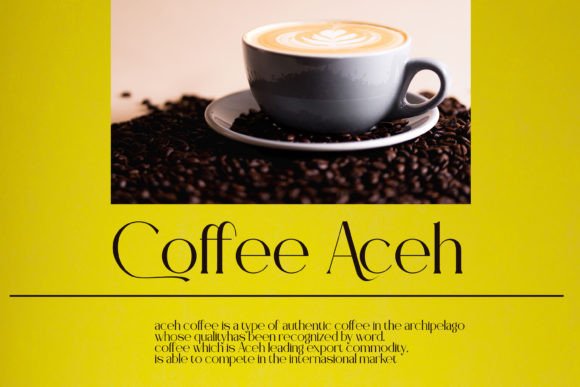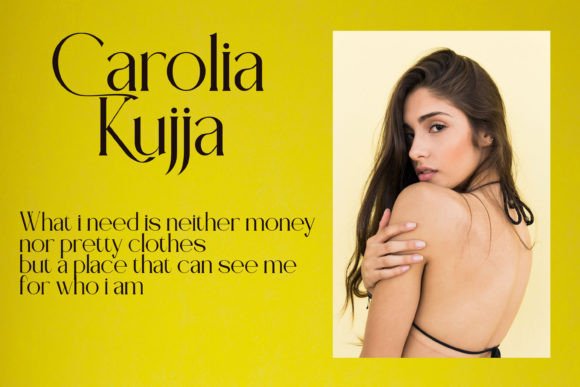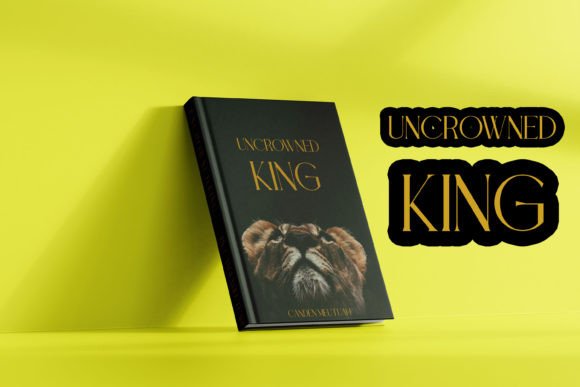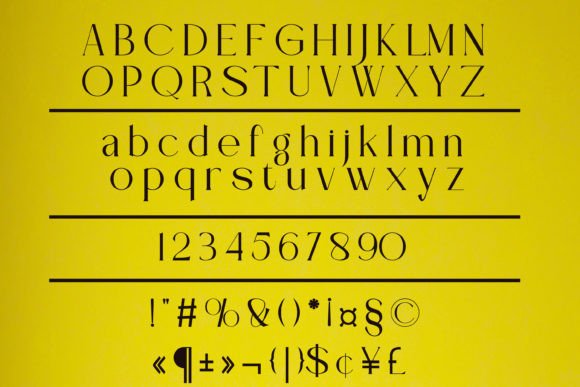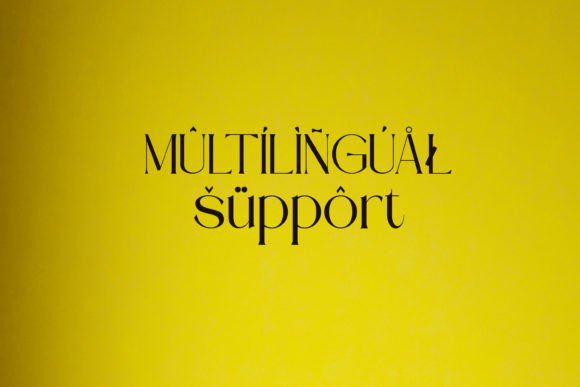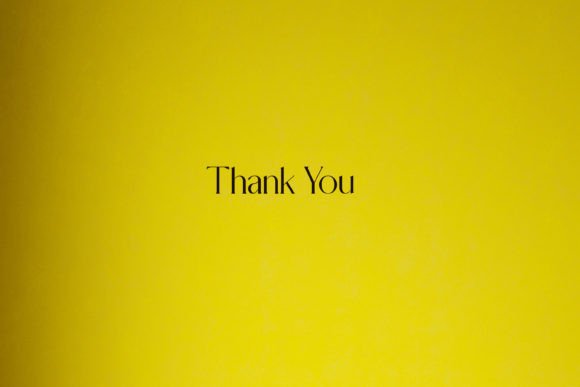
Ginthagil Font: Elevate Your Designs with Elegance and Sophistication
In the world of typography, a font can make or break the visual appeal of a design project. For designers and crafters seeking to add a touch of luxury and style to their creations, the Ginthagil Serif font is an excellent choice. This modern serif font is packaged in a sleek and classy style, complete with access to OpenType features that offer a wide range of alternative letters and ligatures.
What is Ginthagil Serif Font?
Ginthagil Serif is a contemporary serif font designed to provide a luxurious and elegant impression. Its modern and classy style makes it perfect for various design projects, from branding and logo design to packaging, magazine titles, and advertisements. The font’s versatility allows it to work well in both large and small sizes, ensuring that your designs look great regardless of the application.
Key Features of Ginthagil Serif Font
- OpenType Features: Ginthagil Serif font comes with access to OpenType features, allowing you to tap into a vast selection of alternative letters and ligatures. This feature enables you to choose the perfect letters for your design, giving you creative control and flexibility.
- Large Selection of Letters: The font includes a wide range of uppercase and lowercase letters, ensuring that you can mix and match to create a unique look that suits your design style.
- Luxurious and Elegant Appearance: Ginthagil Serif font is designed to exude luxury and elegance, making it perfect for high-end branding projects, magazine titles, and advertisements.
- Versatility: This font works well in both large and small sizes, making it suitable for various applications, from logo design to product packaging.
Ginthagil Serif font is an excellent choice for designers and crafters looking to add a touch of sophistication to their projects. Whether you’re working on:
- Branding Projects: Create a luxurious and memorable brand identity with Ginthagil Serif font.
- Logo Design: Use the font to create a unique and elegant logo that stands out.
- Clothing Branding: Add a touch of style and sophistication to your clothing brand with this versatile font.
- Packaging: Elevate your product packaging with a font that exudes luxury and elegance.
- Magazine Titles: Create eye-catching magazine titles that grab attention.
- Advertisements: Use Ginthagil Serif font to create ads that stand out and leave a lasting impression.
- T-Shirts: Design stylish and elegant t-shirts with this versatile font.
- Postcards: Create beautiful and eye-catching postcards with Ginthagil Serif font.
- Editorials: Use the font to add a touch of sophistication to your editorials.
- Magazine Headlines: Create attention-grabbing headlines that showcase your content.
- Product Packaging: Elevate your product packaging with a luxurious and elegant font.
Masculine and Feminine Qualities
Ginthagil Serif font is designed to display both masculine and feminine qualities, making it a versatile choice for various design projects. The font’s elegant and sophisticated style ensures that it can be used to create designs that appeal to a wide range of audiences.
In conclusion, Ginthagil Serif font is an excellent choice for designers and crafters seeking to add a touch of luxury and style to their projects. With its modern and classy style, access to OpenType features, and wide range of letters, this font is perfect for various design applications. Whether you’re working on branding projects, logo design, packaging, or magazine titles, Ginthagil Serif font is sure to elevate your designs and leave a lasting impression.